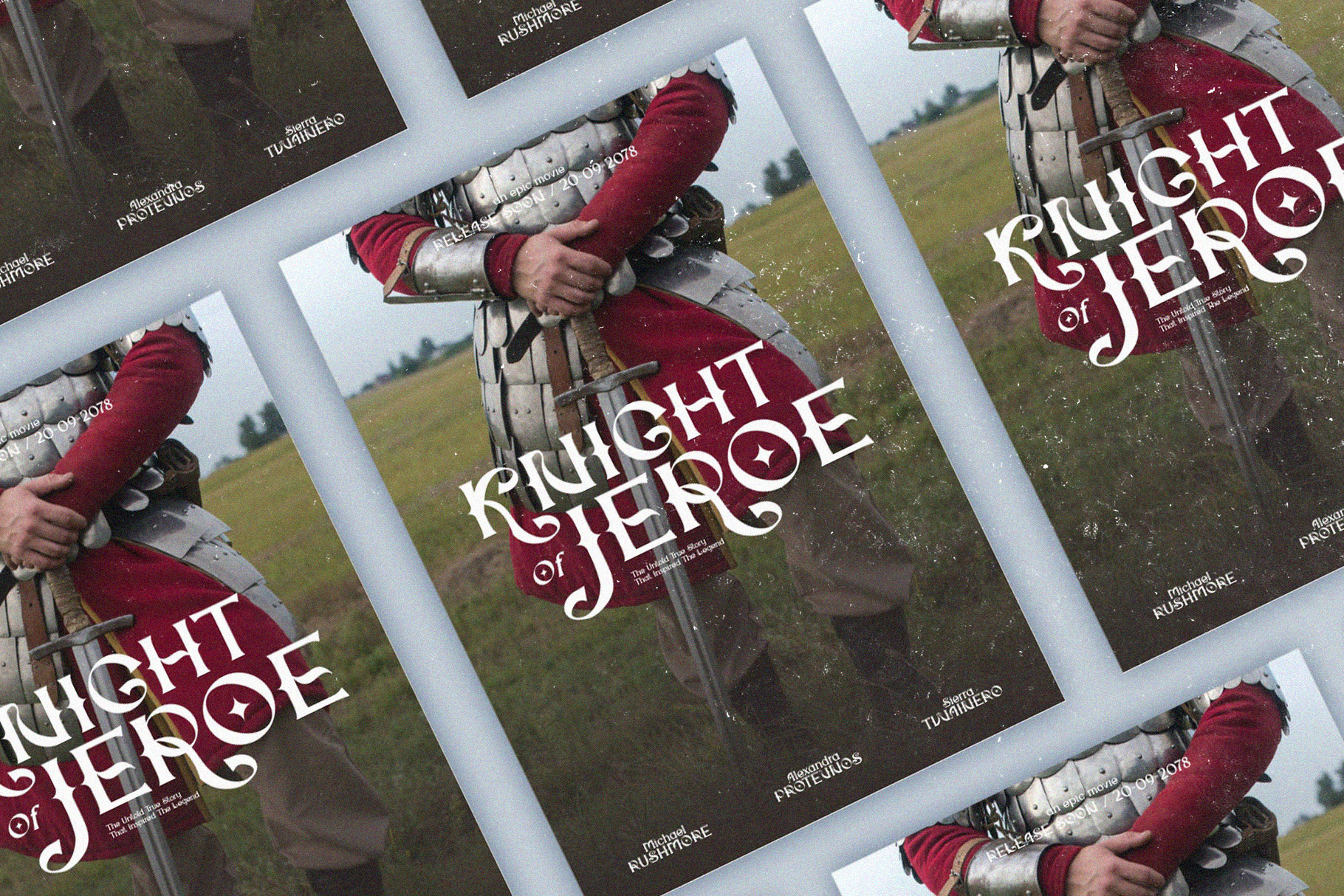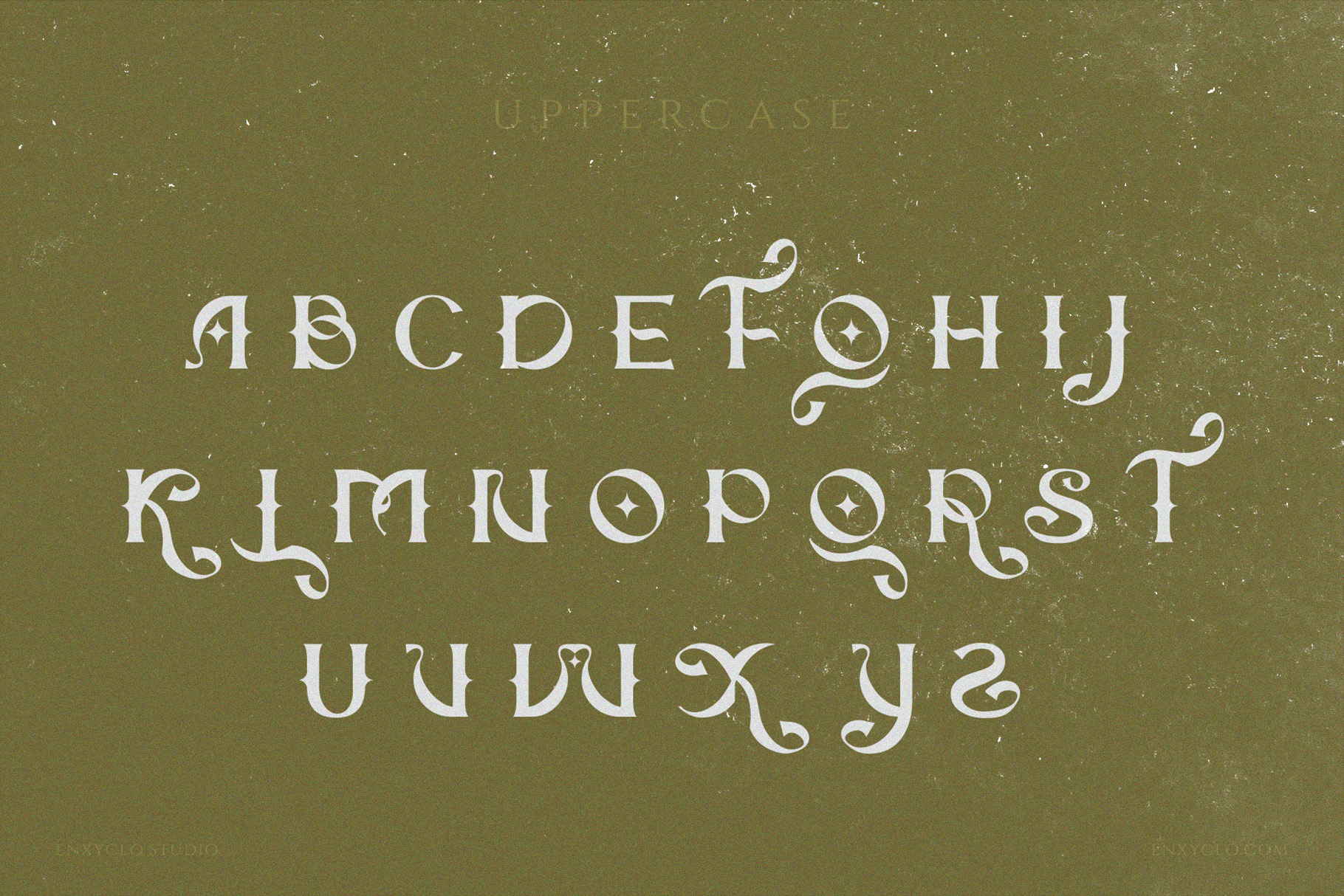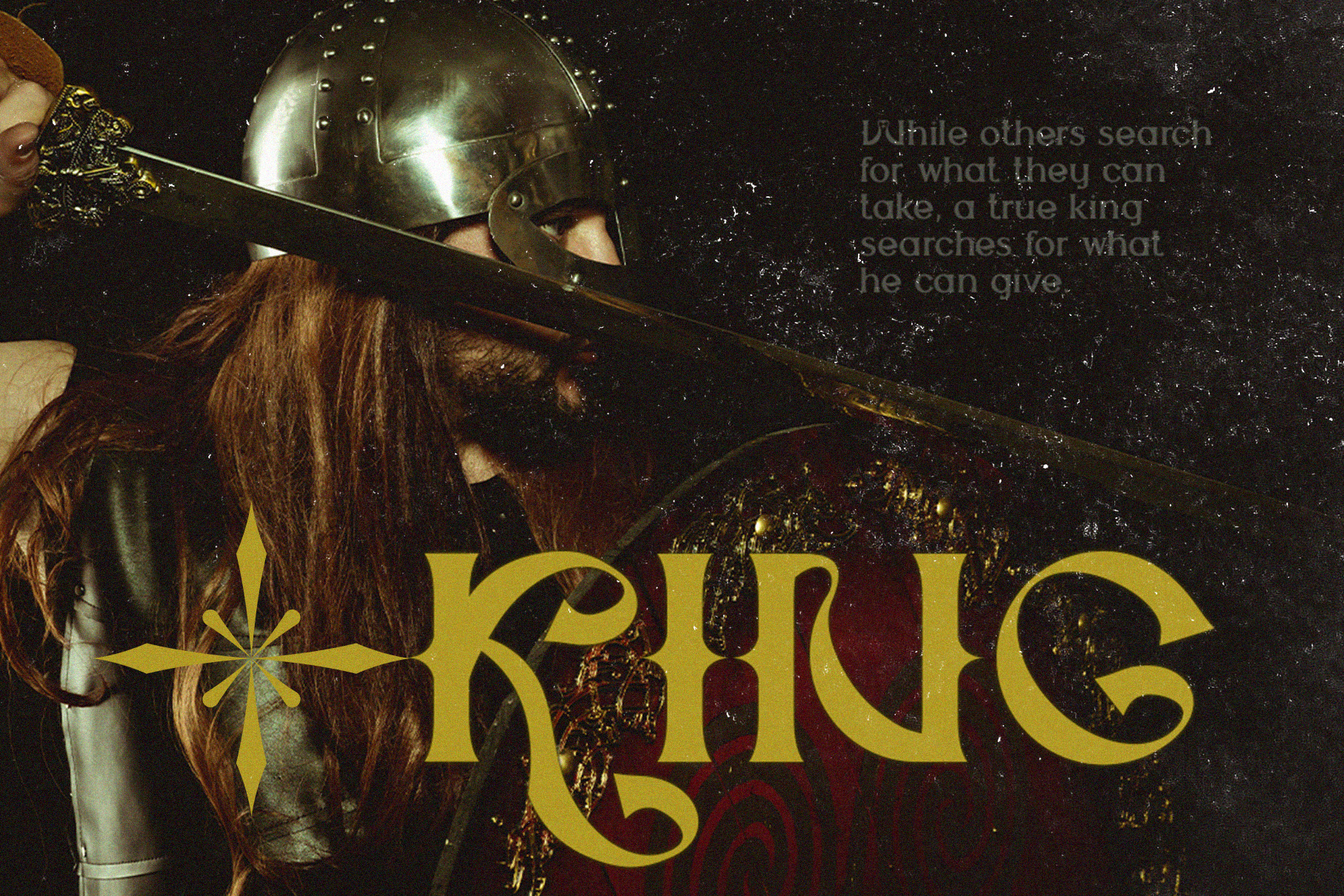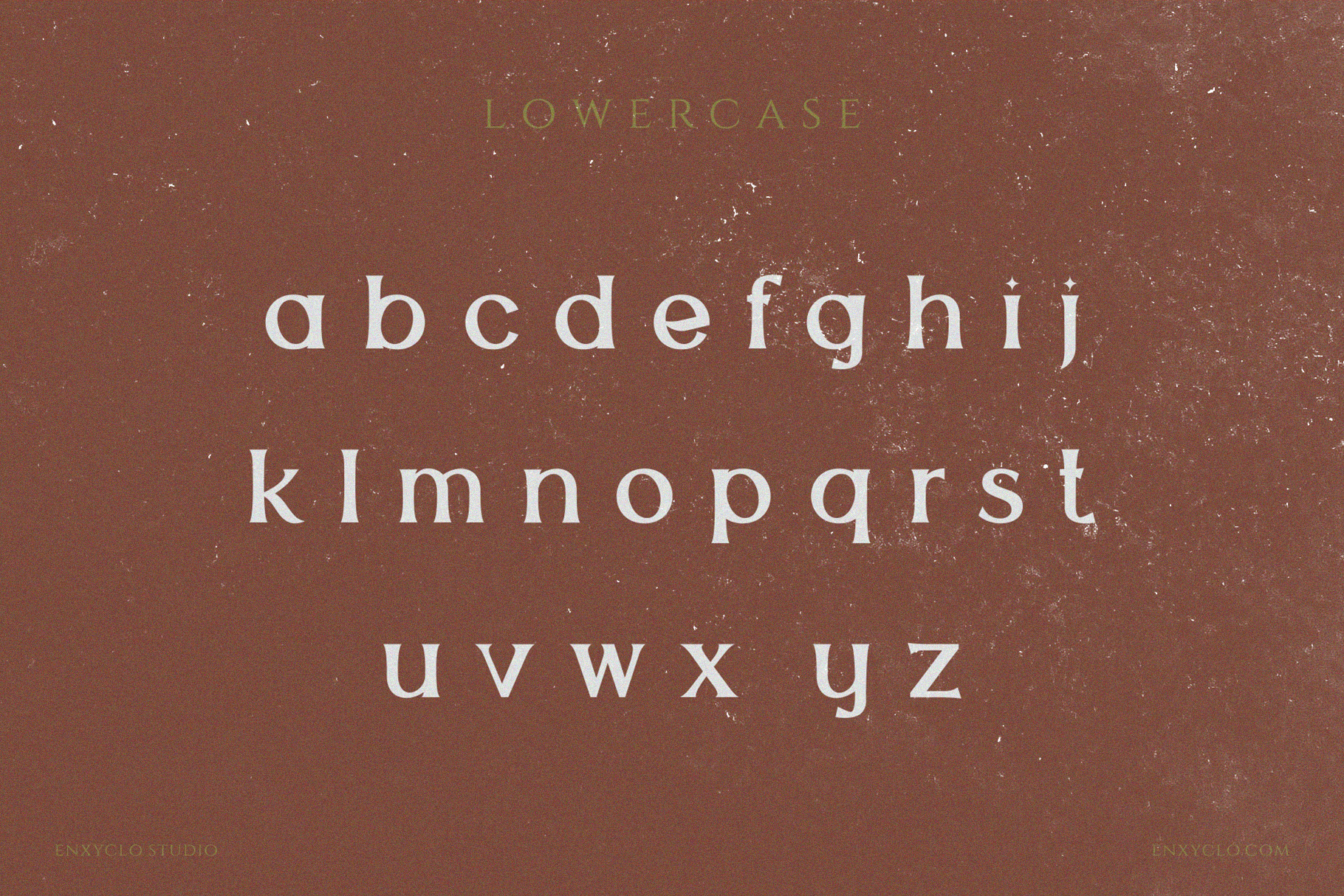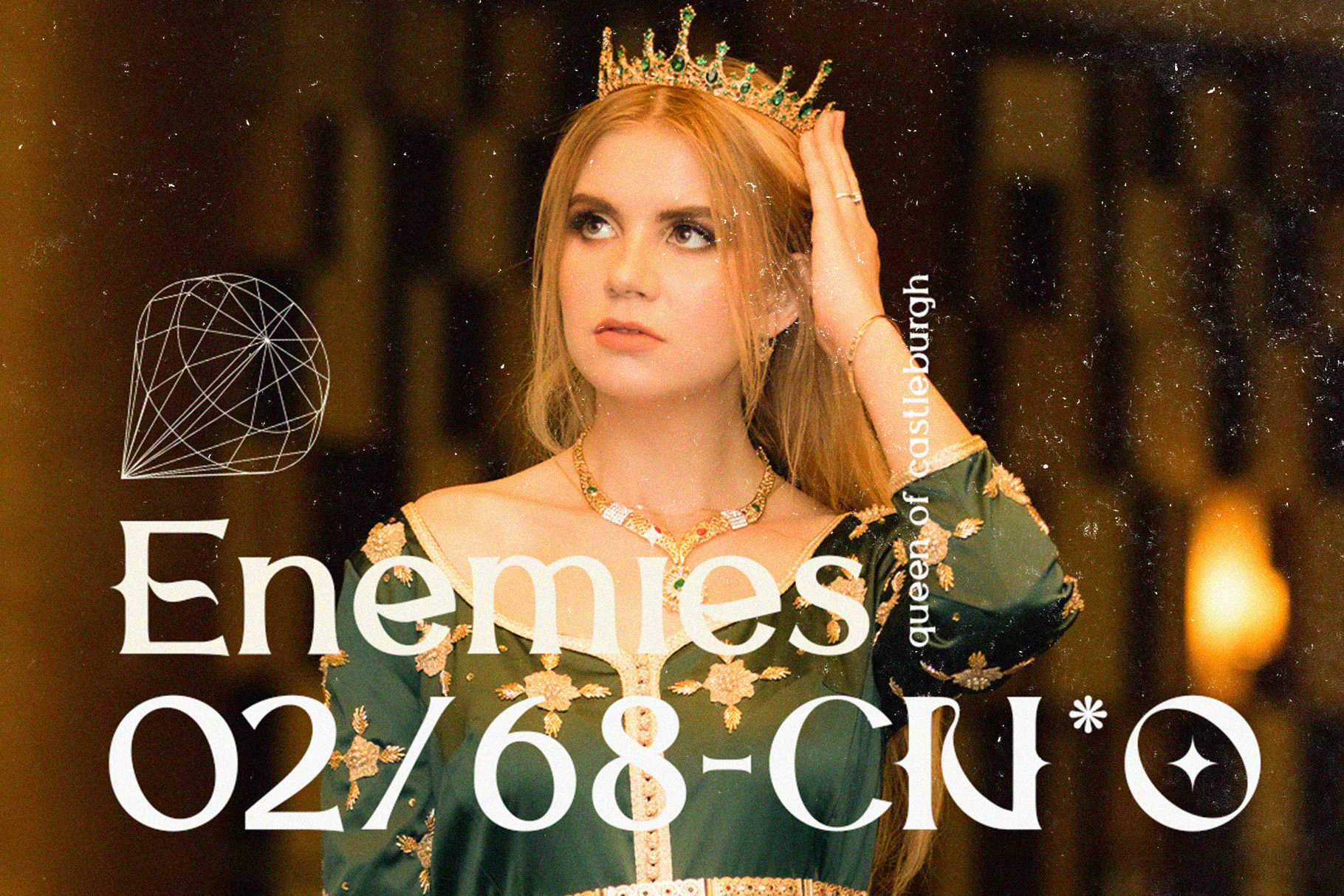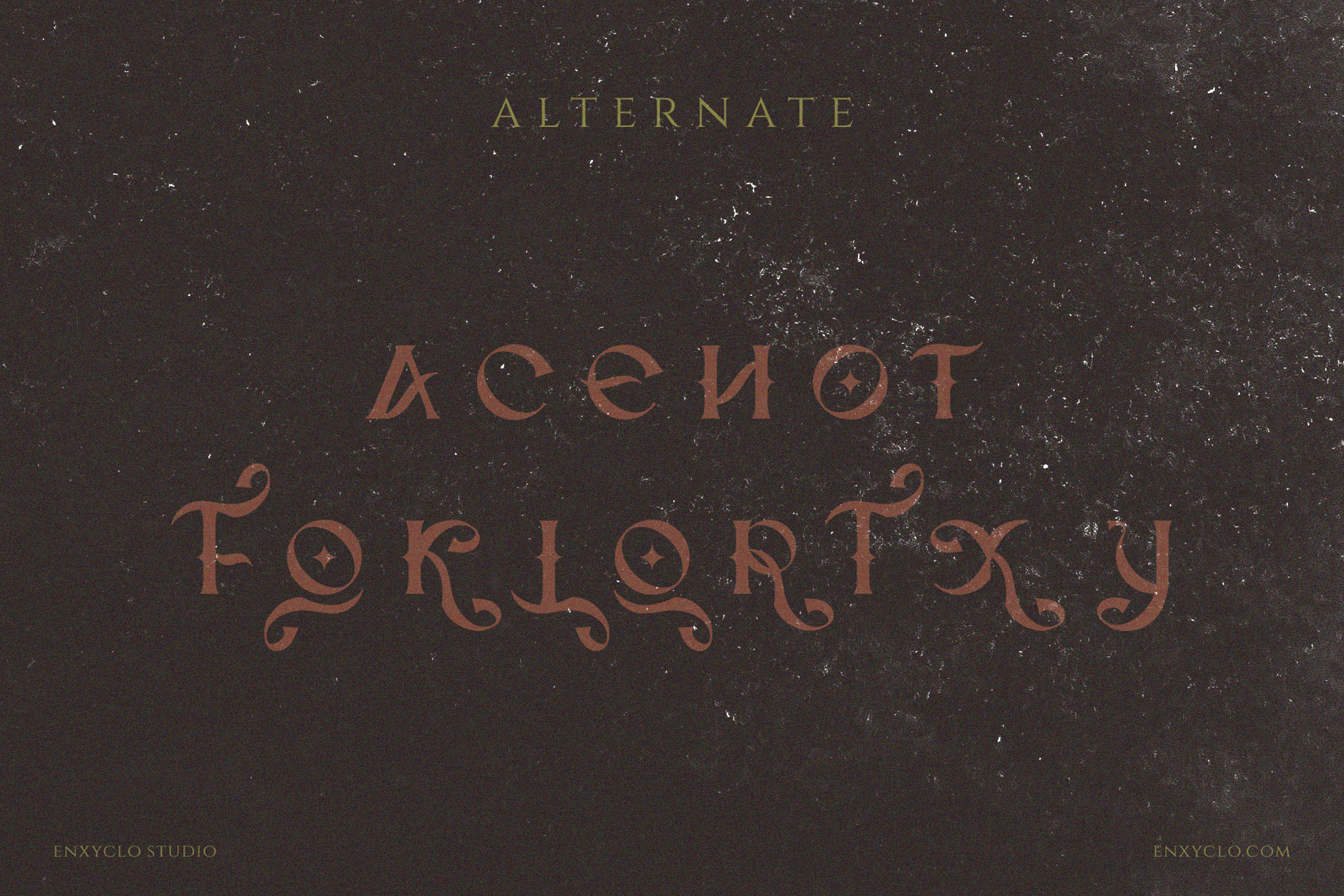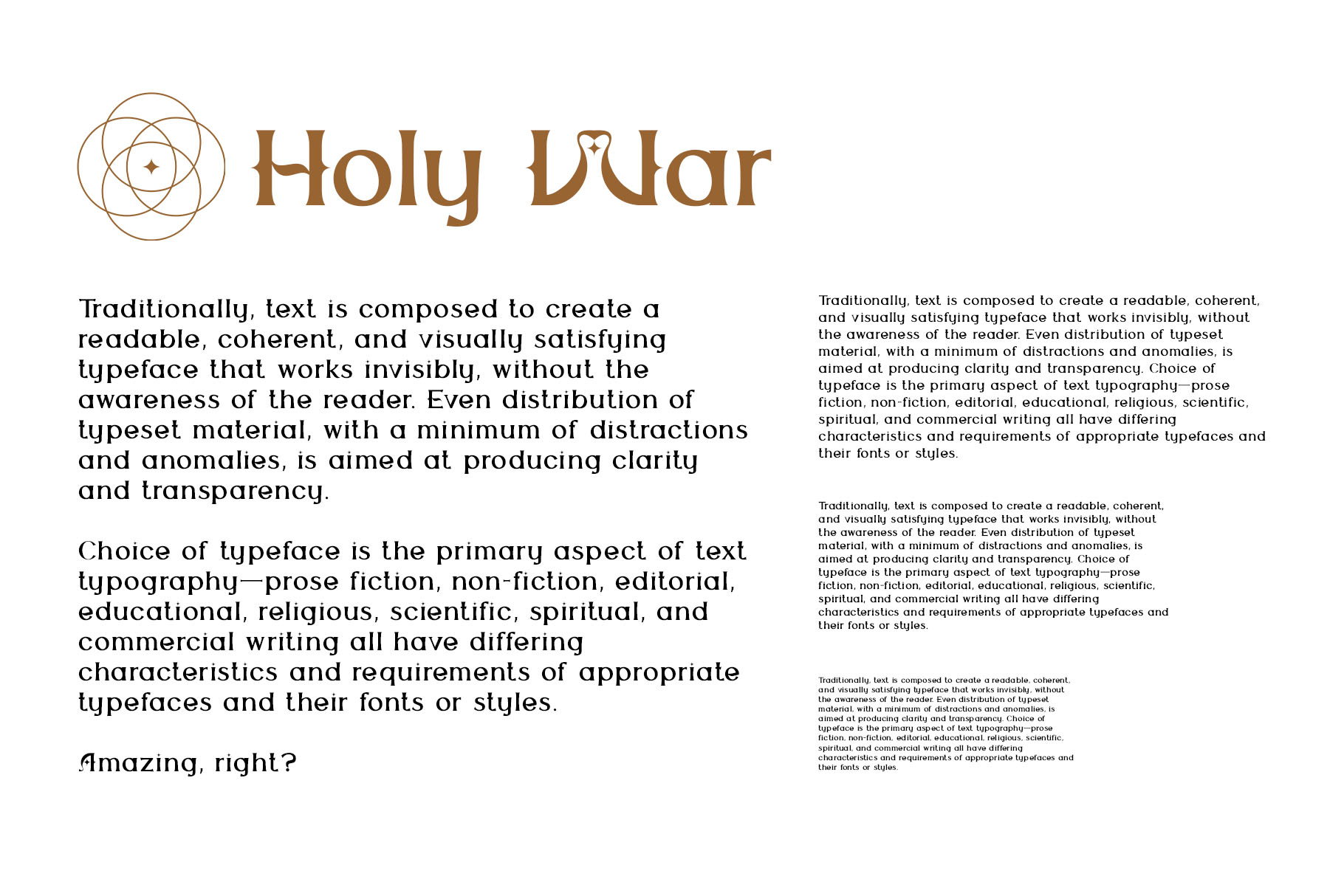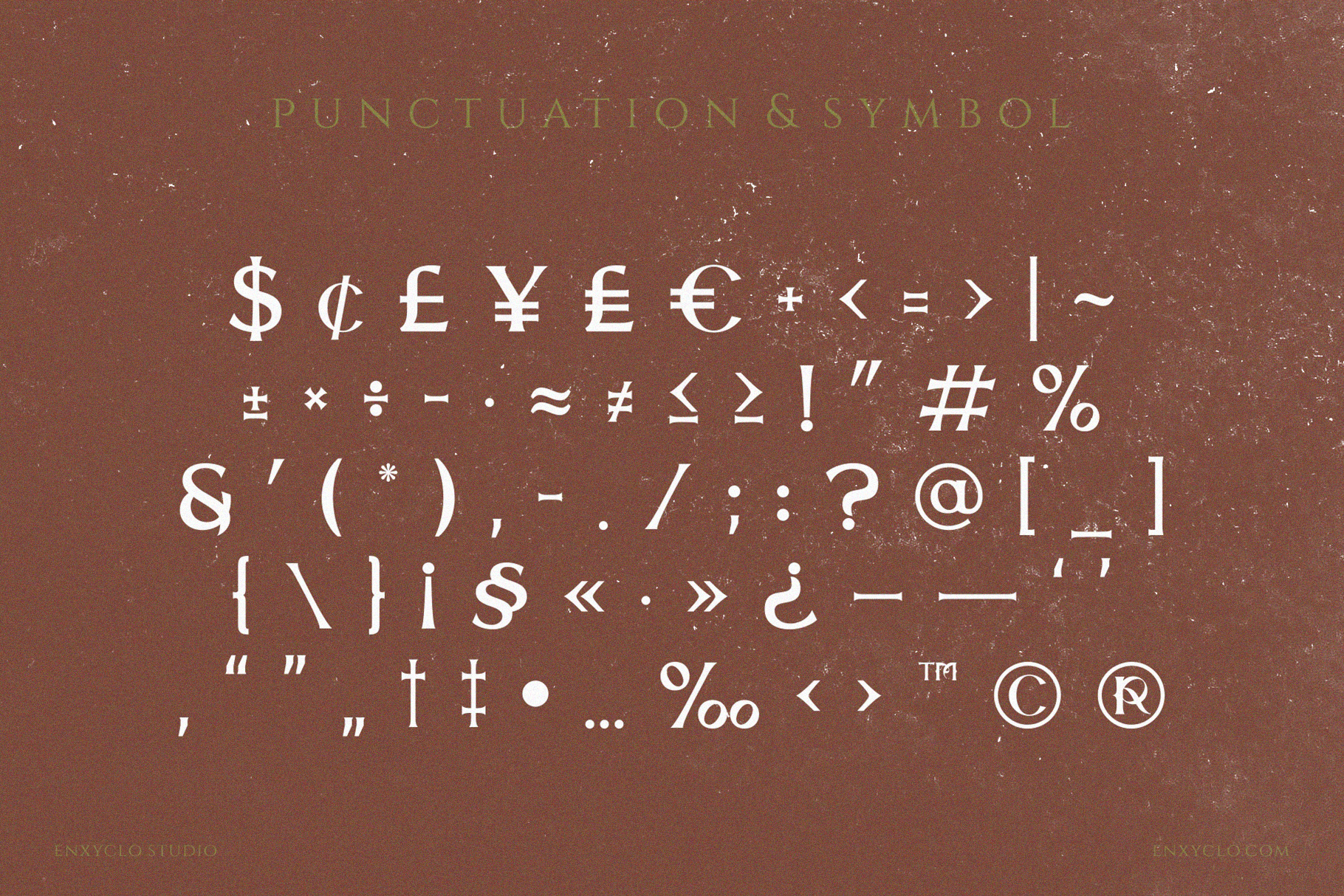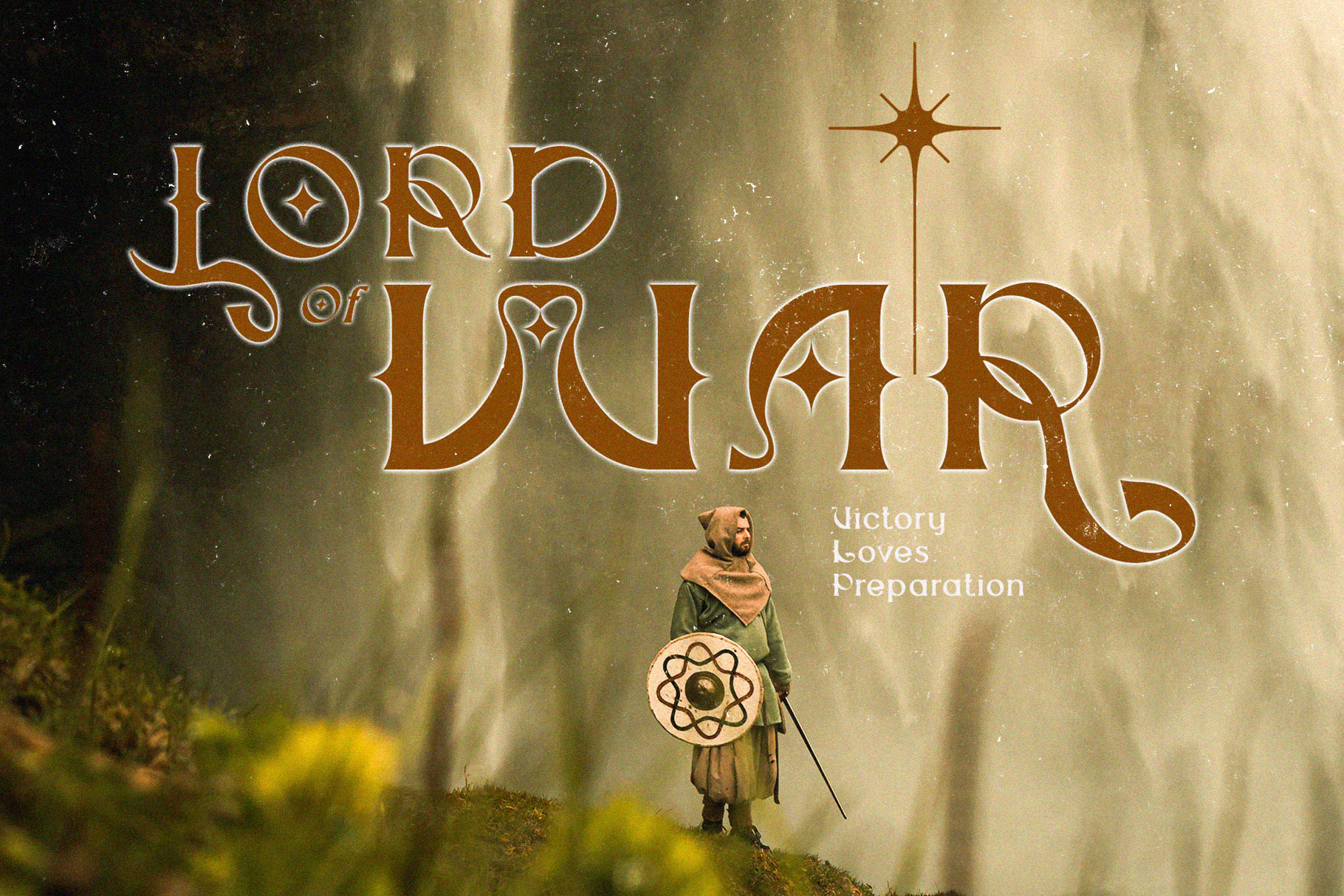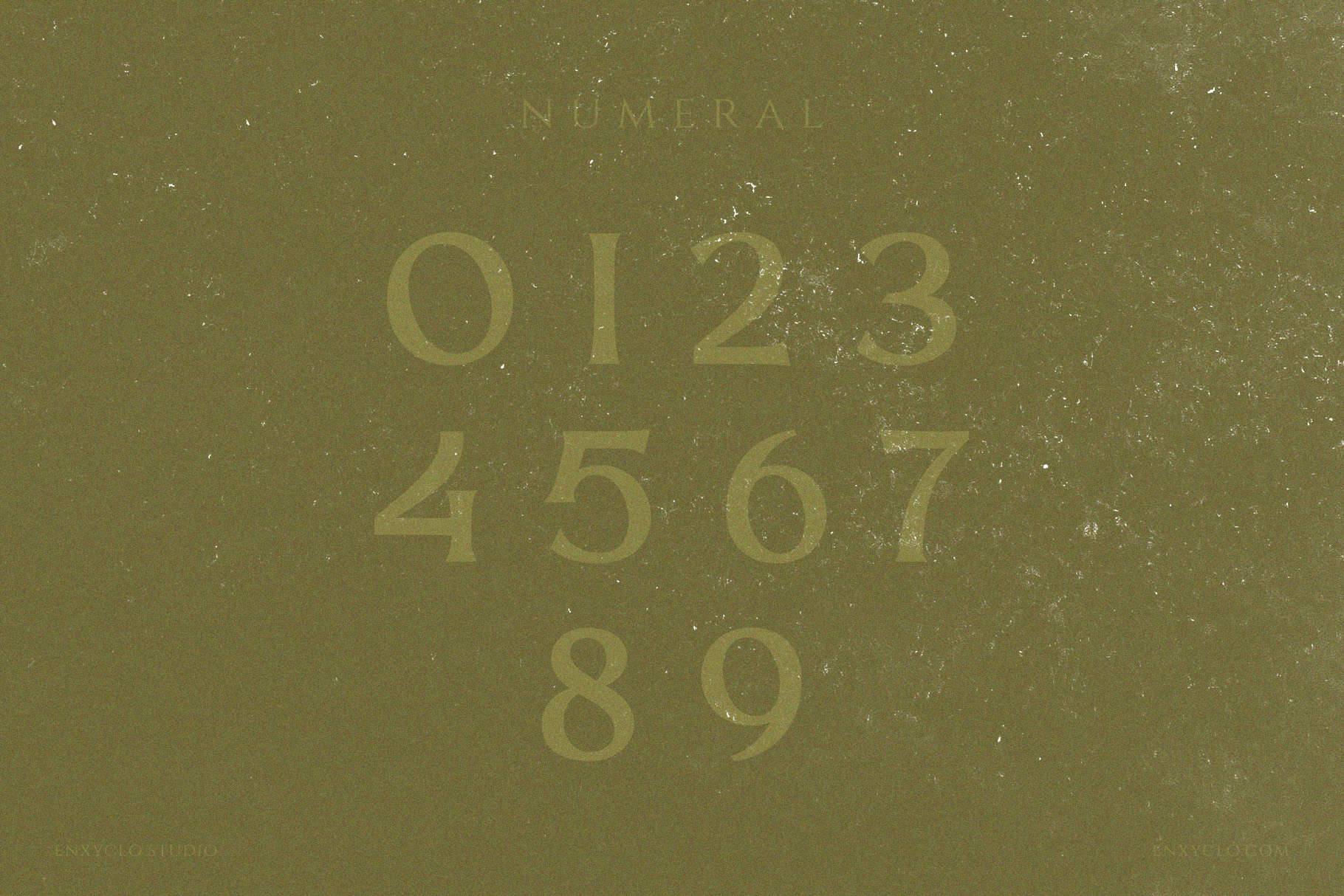
The Quironax – Medieval Font
THE QUIRONAX is unique medieval display font with bold and complex personality. It was purposely crafted to be used in large point sizes, although it doesn’t lose its magic in small point sizes. It is perfect for headline, billboard, magazines, website, titles, poster, branding, logos, social media posts, advertisements, product packaging, product designs, label, photography, watermark, invitation, stationery, etc. It is simple, easy to read, and works equally as well in header and body text. With this beautiful font, absolutely you can make your project stand out from the rest. See the previews above to get some inspiration on how to use them.
• 2 Styles: Regular & Slant
• Contains 361 Glyphs for Each Style (Total: 722 Glyphs)
• Uppercase and Lowercase
• Ligatures & Alternates
• Numeral & Punctuation
• Symbols & Currency
• Multilingual Support